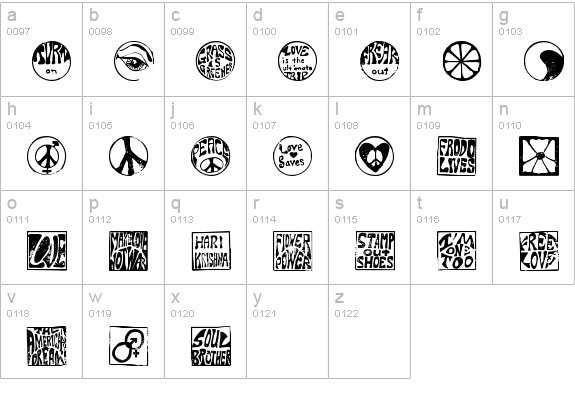
Hippyman Font Details
Hippyman font is a whimsical and fun typeface that exudes a carefree and laid-back vibe, perfect for adding a touch of grooviness to your designs. With its quirky curves and playful style, Hippyman font is sure to bring a sense of nostalgia and retro charm to any project. This unique font is freely available to download at FontsMarket.com, making it accessible to all who want to infuse their creations with a touch of hippie spirit. Let Hippyman font take you on a journey back to the colorful and vibrant era of the 60s and 70s, where peace, love, and creativity reigned supreme.